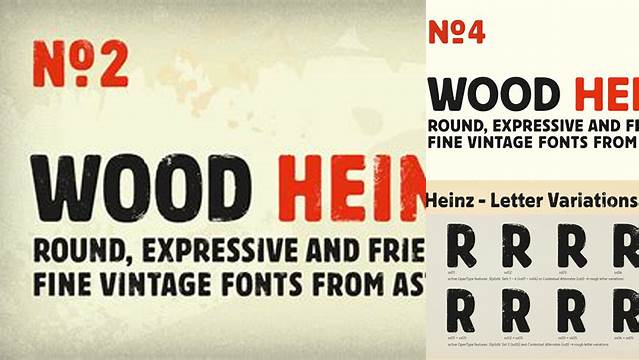
Hey guys! Ever stumbled upon a font that just screams vintage charm and rustic appeal? Chances are, you've seen something similar to the Wood Heinz font. This font style, reminiscent of old-school signage and handcrafted designs, is super popular for adding a touch of authenticity to your projects. In this comprehensive guide, we're diving deep into everything you need to know about Wood Heinz font free, from its origins and characteristics to where you can find it and how to use it effectively. So, buckle up and let's get started!
What is Wood Heinz Font?
Wood Heinz font isn't a single, official typeface but rather a style that mimics the look of vintage woodblock lettering, particularly those associated with brands like Heinz. Think of those classic, bold, slightly distressed letterforms that evoke a sense of history and craftsmanship. This style is characterized by its sturdy, blocky appearance, often with subtle imperfections that add to its rustic charm. The essence of Wood Heinz font free lies in its ability to transport viewers back to a simpler time, making it ideal for designs that aim to convey nostalgia, authenticity, or a handmade feel. Whether you're working on a logo, poster, or website, incorporating a font that captures the spirit of Wood Heinz can instantly elevate your design and give it a unique edge. The key is to find a font that balances readability with the desired vintage aesthetic, ensuring that your message is both clear and visually appealing.
History and Inspiration Behind Wood Heinz Fonts
The history and inspiration behind Wood Heinz fonts are deeply rooted in the evolution of typography and advertising. The specific style draws heavily from the woodblock printing era, where letterforms were carved into wooden blocks and used for mass production of printed materials. This technique, prevalent in the 19th and early 20th centuries, resulted in fonts that had a distinct, handcrafted appearance. The Wood Heinz font free aesthetic is further influenced by the branding and visual identity of companies like Heinz, which utilized bold, straightforward lettering in their packaging and advertisements. These brands often opted for fonts that were easy to read and visually impactful, ensuring that their products stood out on crowded shelves. The inspiration behind these fonts also comes from the broader context of industrial design and the Arts and Crafts movement, which emphasized the value of handmade goods and traditional craftsmanship. By understanding the historical and cultural influences that shaped the Wood Heinz font style, designers can better appreciate its significance and use it effectively in their own projects.
Key Characteristics of Wood Heinz Style Fonts
Wood Heinz style fonts are immediately recognizable due to their distinct characteristics. One of the primary features is their bold and blocky letterforms, which provide a strong visual presence. These fonts often have a high stroke contrast, meaning that the thick and thin parts of the letters are quite pronounced. Another defining characteristic is the presence of subtle imperfections or distress, such as slightly uneven edges or minor variations in letter height. These imperfections contribute to the font's rustic and handmade feel. Wood Heinz font free styles also tend to have a relatively condensed width, allowing for more characters to fit within a given space. This makes them ideal for headlines, titles, and other display purposes. Furthermore, many Wood Heinz style fonts incorporate stylistic alternates or ligatures, which are special characters that add to the font's uniqueness and versatility. When selecting a Wood Heinz style font, it's important to consider these characteristics and how they align with the overall design aesthetic you're trying to achieve. The right font can make all the difference in conveying the desired mood and message.
Using Wood Heinz Fonts in Your Designs
So, you've found the perfect Wood Heinz font – great! Now, let's talk about how to use it effectively in your designs. This font style is particularly well-suited for projects that aim to evoke a sense of nostalgia, authenticity, or craftsmanship. Think of vintage-inspired logos, posters, labels, and packaging designs. Wood Heinz font free works especially well when paired with other vintage or rustic design elements, such as aged paper textures, hand-drawn illustrations, and muted color palettes. When using this font, consider the overall hierarchy of your design. It's often best to use it for headlines or titles, where its bold and impactful presence can make a strong statement. Avoid using it for large blocks of text, as its condensed width and stylistic quirks can make it difficult to read. Also, pay attention to the spacing and kerning of the letters to ensure optimal readability. Experiment with different font sizes and weights to find the right balance for your design. And don't be afraid to add subtle effects, such as drop shadows or textures, to further enhance the font's vintage appeal. By carefully considering these factors, you can effectively incorporate Wood Heinz fonts into your designs and create visually compelling and memorable pieces.
Pairing Wood Heinz Fonts with Other Typefaces
Wood Heinz fonts, with their strong and distinctive character, can be a fantastic addition to any design, but pairing them correctly with other typefaces is crucial. The goal is to create a harmonious balance that enhances the overall aesthetic. One approach is to pair a Wood Heinz font free with a clean, simple sans-serif font for body text. This contrast creates visual interest while maintaining readability. Think of using a font like Open Sans or Lato for the main content, allowing the Wood Heinz font to shine in headlines or titles. Another option is to pair it with a classic serif font, such as Garamond or Times New Roman, for a more traditional and elegant look. This combination works well for projects that aim to evoke a sense of timelessness and sophistication. When pairing fonts, pay attention to the font weights and sizes. Avoid using fonts that are too similar in weight or style, as this can create a visual conflict. Instead, aim for a clear hierarchy, with the Wood Heinz font taking center stage and the supporting font playing a more subtle role. Experiment with different combinations and see what works best for your specific design. Remember, the key is to create a cohesive and visually appealing composition that effectively communicates your message.
Wood Heinz Font for Logos and Branding
Using Wood Heinz font for logos and branding can instantly give your brand a vintage and authentic feel. This font style is particularly effective for businesses that want to convey a sense of tradition, craftsmanship, or heritage. Think of brands in the food and beverage industry, artisan goods, or vintage-inspired products. The bold and sturdy letterforms of Wood Heinz font free can create a strong visual identity that stands out from the competition. When using this font for your logo, consider the overall aesthetic of your brand. Pair it with complementary colors, graphics, and design elements that reinforce the desired message. For example, you might use a muted color palette, aged paper textures, and hand-drawn illustrations to create a cohesive and visually appealing brand identity. Also, pay attention to the scalability of your logo. Ensure that the Wood Heinz font remains legible and recognizable at various sizes, from business cards to billboards. Consider creating variations of your logo for different applications, such as a simplified version for small spaces or a more elaborate version for larger formats. By carefully considering these factors, you can effectively use Wood Heinz fonts to create a memorable and impactful brand identity.
Creating a Vintage Aesthetic with Wood Heinz Fonts
If you're aiming to create a vintage aesthetic in your designs, Wood Heinz fonts are an excellent choice. These fonts capture the essence of old-school signage and handcrafted lettering, instantly transporting viewers back to a simpler time. To enhance the vintage feel, consider pairing Wood Heinz font free with other design elements that evoke nostalgia. Think of using aged paper textures, distressed backgrounds, and muted color palettes. Sepia tones, desaturated colors, and subtle gradients can all contribute to the overall vintage effect. Also, consider incorporating hand-drawn illustrations or vintage photographs into your designs. These elements can add a personal touch and further enhance the sense of authenticity. When using Wood Heinz fonts, pay attention to the details. Add subtle imperfections, such as slightly uneven edges or minor variations in letter height, to mimic the look of handcrafted lettering. Experiment with different font sizes and weights to create a dynamic and visually appealing composition. And don't be afraid to add subtle effects, such as drop shadows or textures, to further enhance the font's vintage appeal. By carefully considering these factors, you can effectively use Wood Heinz fonts to create a truly captivating vintage aesthetic.
Wood Heinz Font Alternatives
While the Wood Heinz font style is distinctive, there are several alternatives that can achieve a similar vintage or rustic aesthetic. If you're unable to find a free Wood Heinz font that perfectly suits your needs, consider exploring these alternatives. One popular option is the League Gothic font, which features bold, condensed letterforms that are reminiscent of vintage wood type. Another alternative is Bebas Neue, a sans-serif font with a similar tall and narrow appearance. For a more distressed and handcrafted look, consider fonts like Amatic SC or Permanent Marker. These fonts have a more irregular and imperfect appearance, which can add to the overall vintage charm. When selecting an alternative, pay attention to the key characteristics of the Wood Heinz font free style, such as its bold letterforms, condensed width, and subtle imperfections. Choose a font that captures these elements while also fitting the overall aesthetic of your design. Also, consider experimenting with different font pairings to find the right balance. By exploring these alternatives, you can find the perfect font to achieve the desired vintage or rustic effect in your designs.
Wood Heinz Font: A Final Word
Alright guys, that's a wrap on our comprehensive guide to Wood Heinz fonts! We've covered everything from the font's history and characteristics to where you can find it and how to use it effectively in your designs. We've also explored some common mistakes to avoid and some tips for choosing the right Wood Heinz font for your project. Hopefully, this guide has given you a better understanding of this versatile and stylish font style. Remember, the key to using Wood Heinz fonts effectively is to use them sparingly, pair them with complementary fonts, and pay attention to readability and accessibility. And don't be afraid to experiment and have fun! Typography is an art form, and the possibilities are endless. So, go out there and create something amazing with Wood Heinz font free! Thanks for reading, and happy designing!